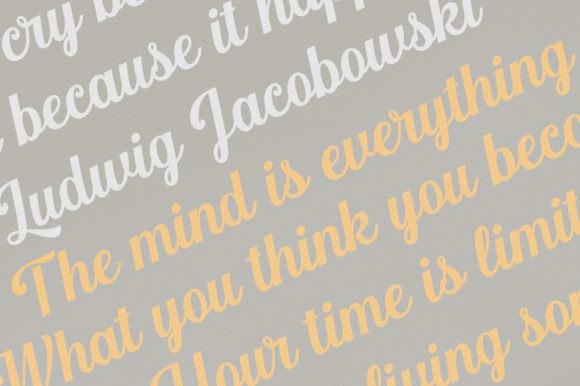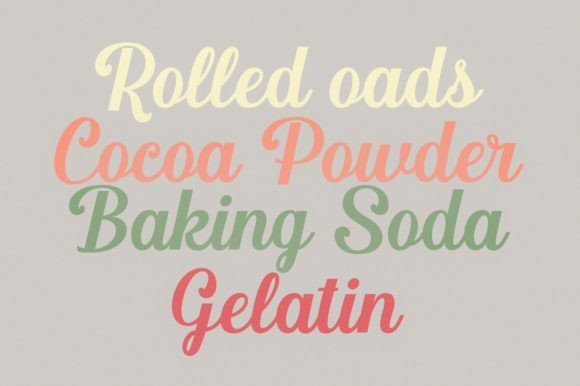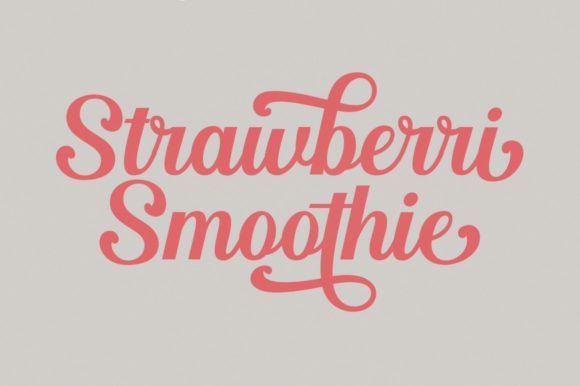
Meldina Font
Meldina is a casual, pretty, and modern handwritten font perfect for logos, product packaging, wedding invitations, branding, headlines, labels, signatures, book covers, posters, quotes, and many more. Add it to any of your creative designs, and they will capture everyone’s attention!